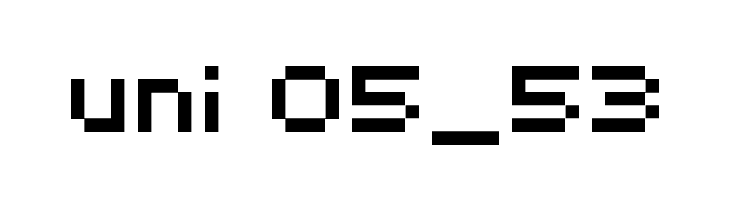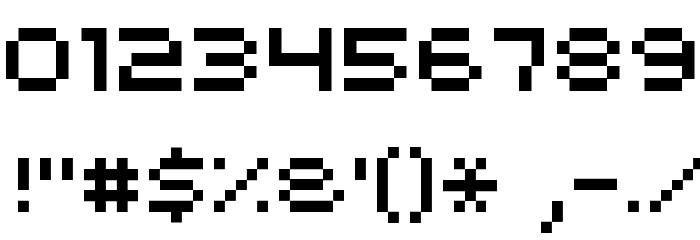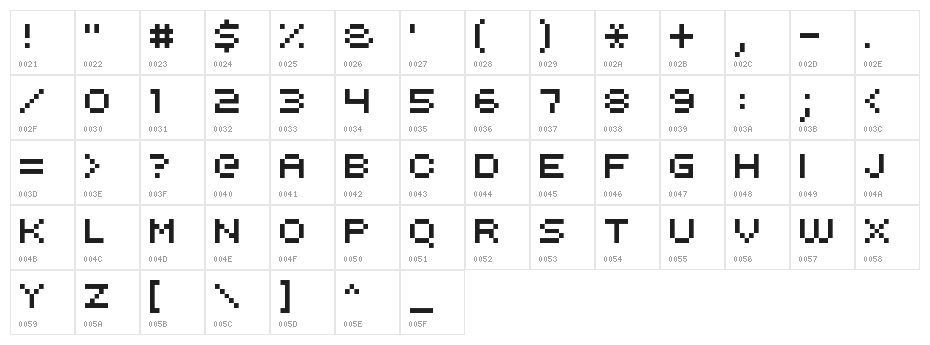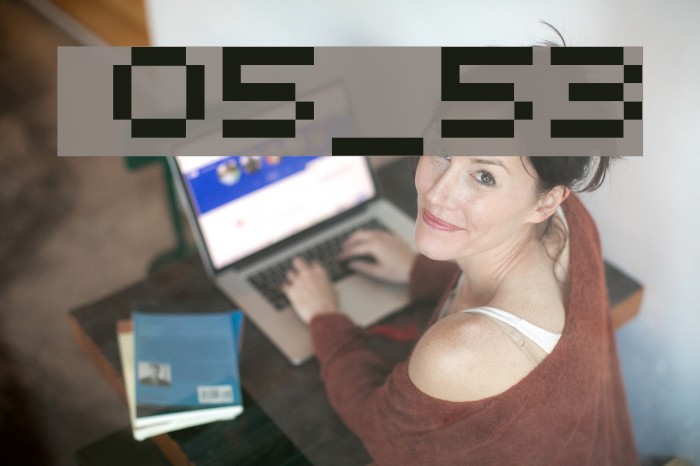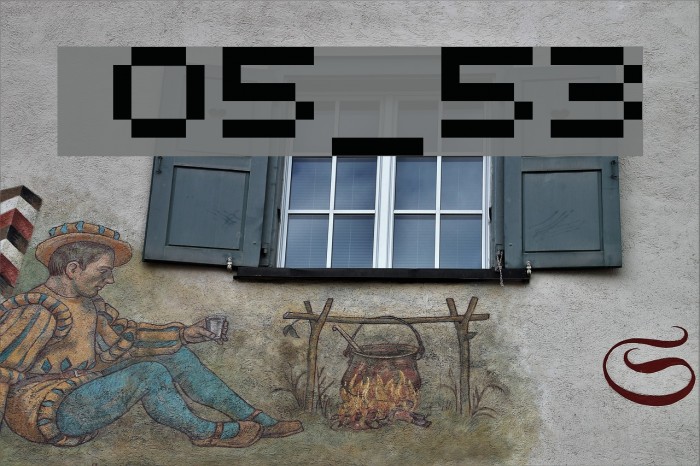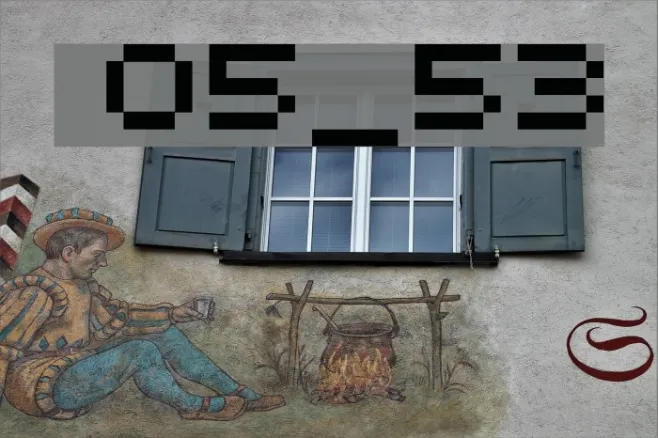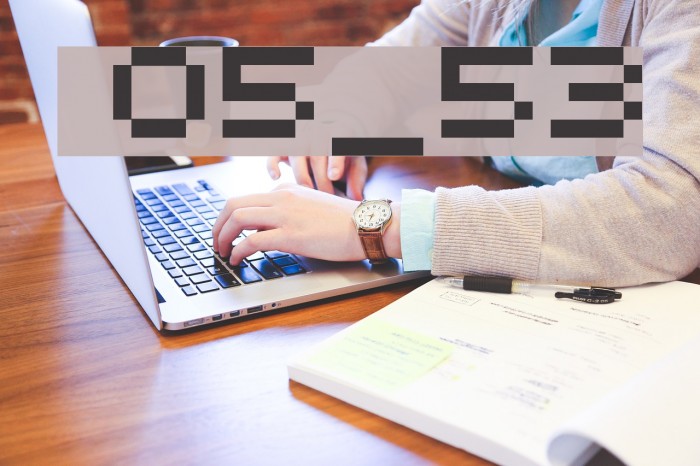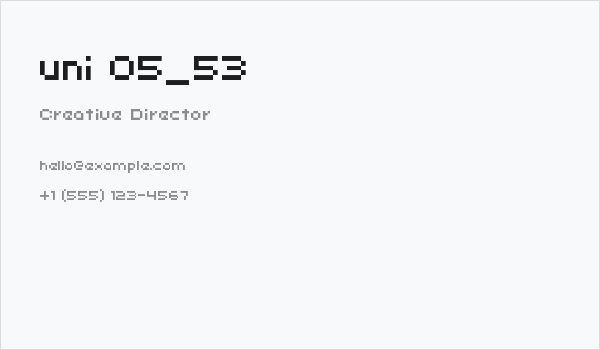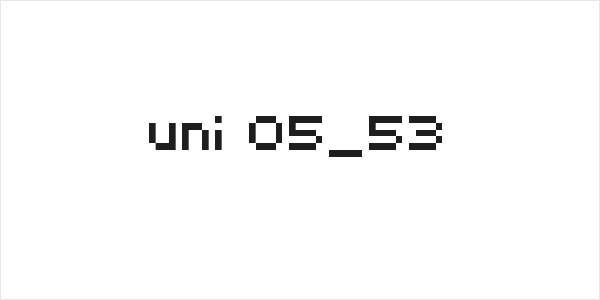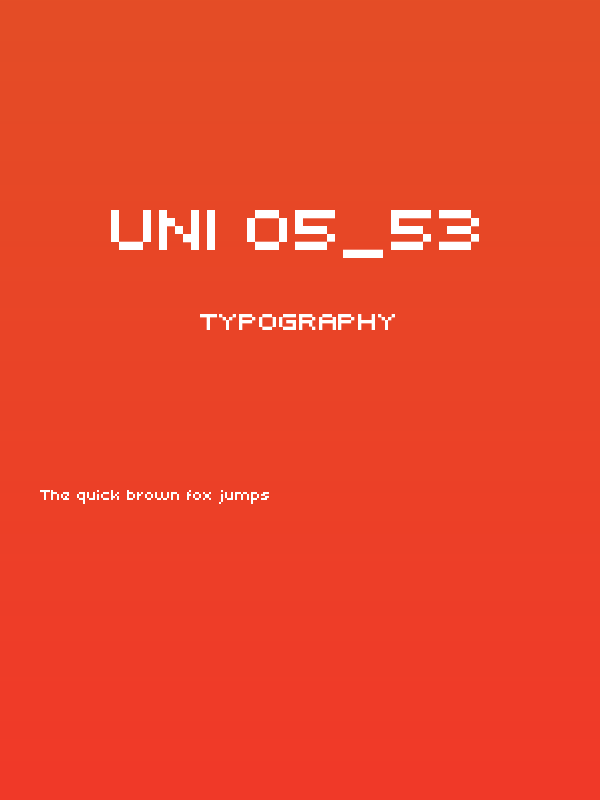
uni 05_53 Font
uni 05_53 Description
This font features a bold, pixelated design reminiscent of early digital displays and retro video games. Each character is constructed with a grid-like precision, giving it a blocky and geometric appearance. The uppercase and lowercase letters maintain a consistent height, contributing to a uniform look. The numerals and special characters follow the same pixelated style, ensuring visual coherence across all glyphs. This font's distinct style makes it ideal for projects that aim to evoke nostalgia or a tech-inspired aesthetic.
| Use Case | Headlines, Logos, Digital Art |
| Proposed Projects | Ideal for retro-themed designs, video game graphics, digital art, and tech-inspired branding. |